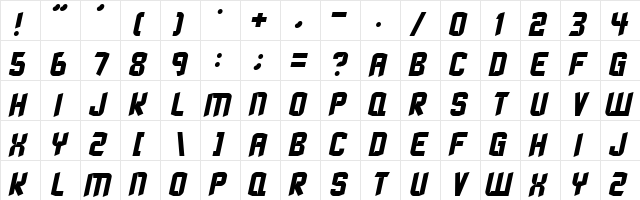
StrangePhenomena normal Regular
Design Context for StrangePhenomena normal
StrangePhenomena normal is a composed and adaptable typeface that performs quietly and consistently across a wide range of design contexts.